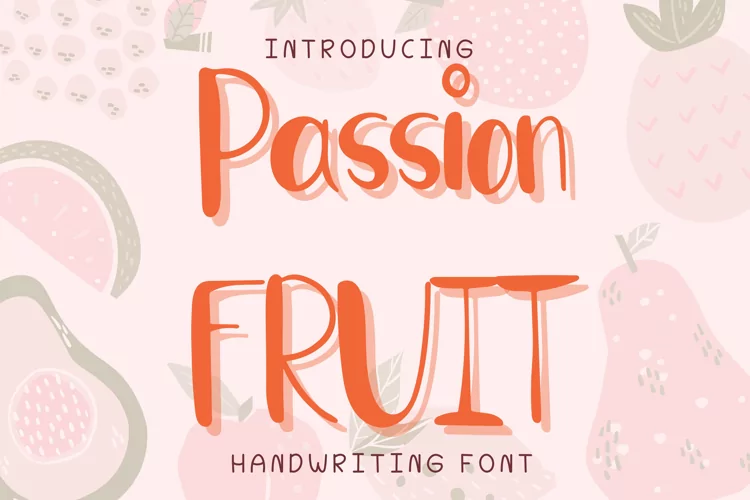
Passion Fruit Style
PassionFruit
Passion Fruit Style is a whimsical and clean handwritten font. It can easily be matched to an incredibly large set of projects, so add it to your creative ideas and notice how it makes them stand out!